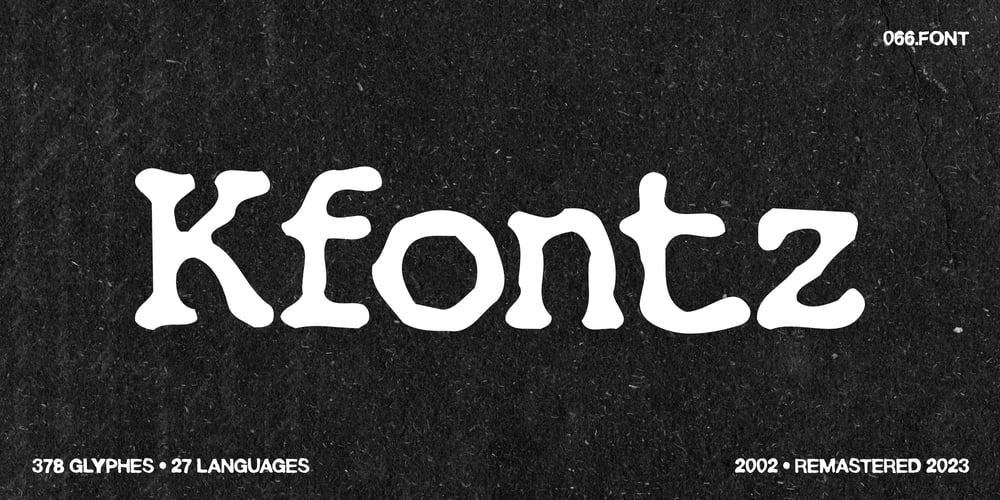
Kfontz Font Family was designed by Piotr Wozniak and published by 066.FONT. Kfontz contains 1 styles and family package options. Kfontz is a display font that simulates the appearance of typewritten text. Each letter in Kfontz has been carefully designed to resemble the effect you get with a typewriter. This effect adds a sense of nostalgia to the text, as if it were from a bygone era, adding an authentic charm to the designs. Kfontz retains its varied and extravagant style, giving the text a lightness and a certain nonchalance. Remastered in 2023.